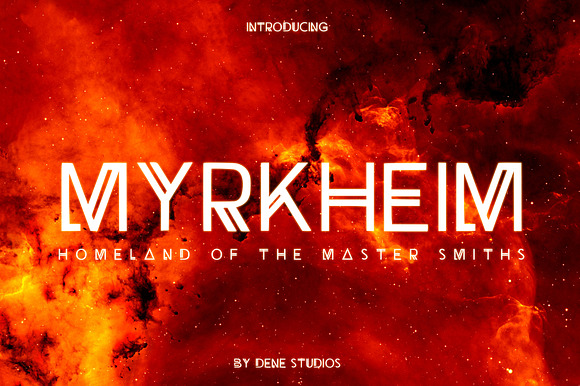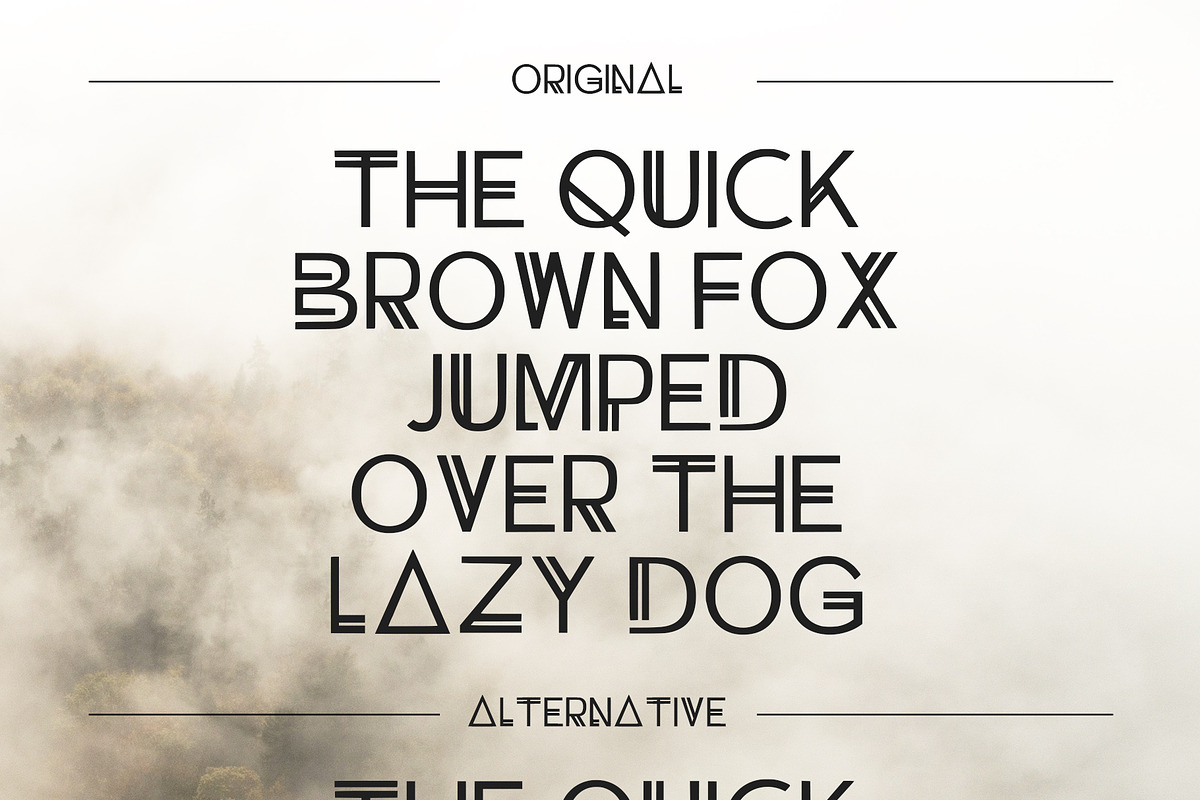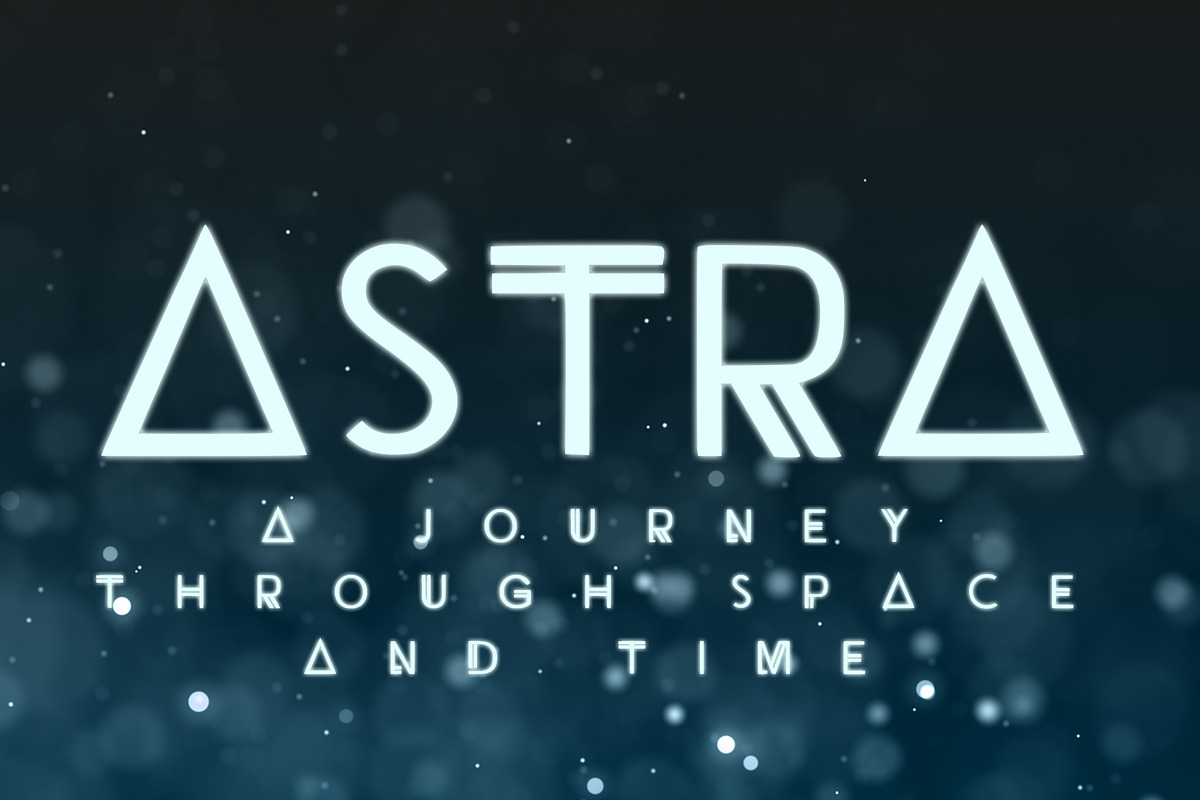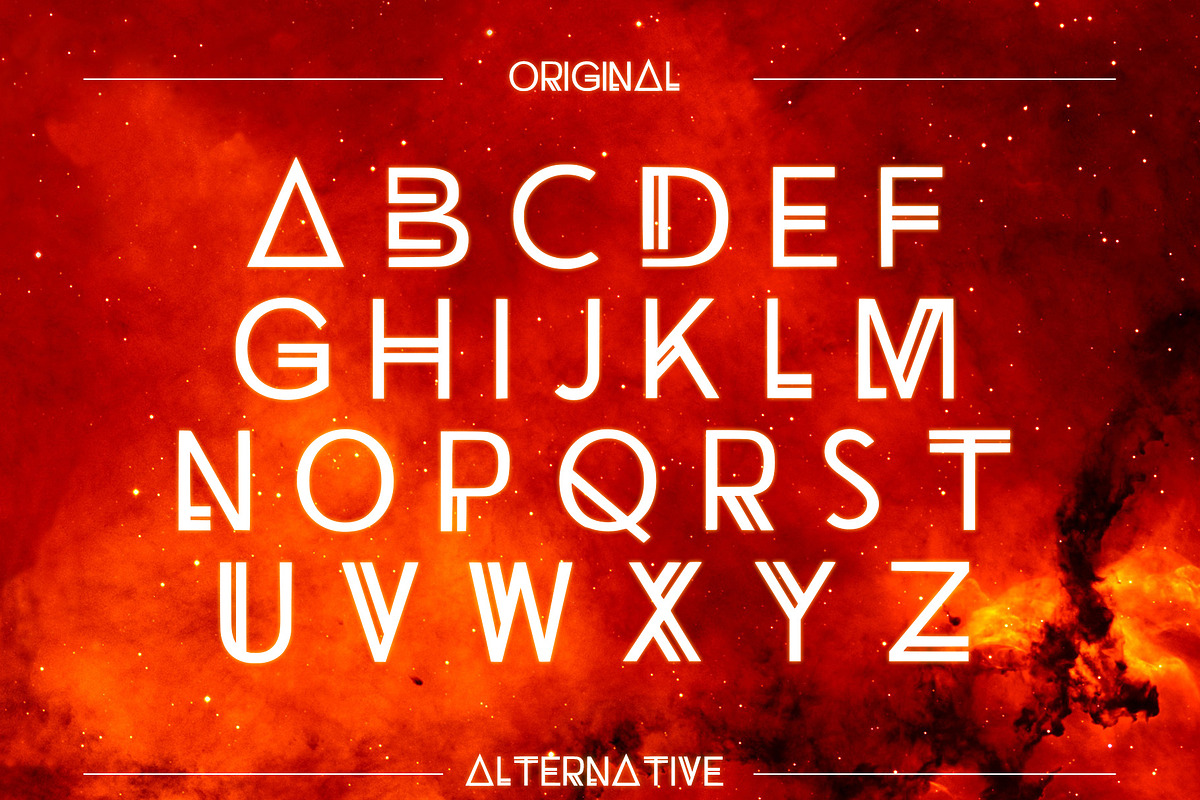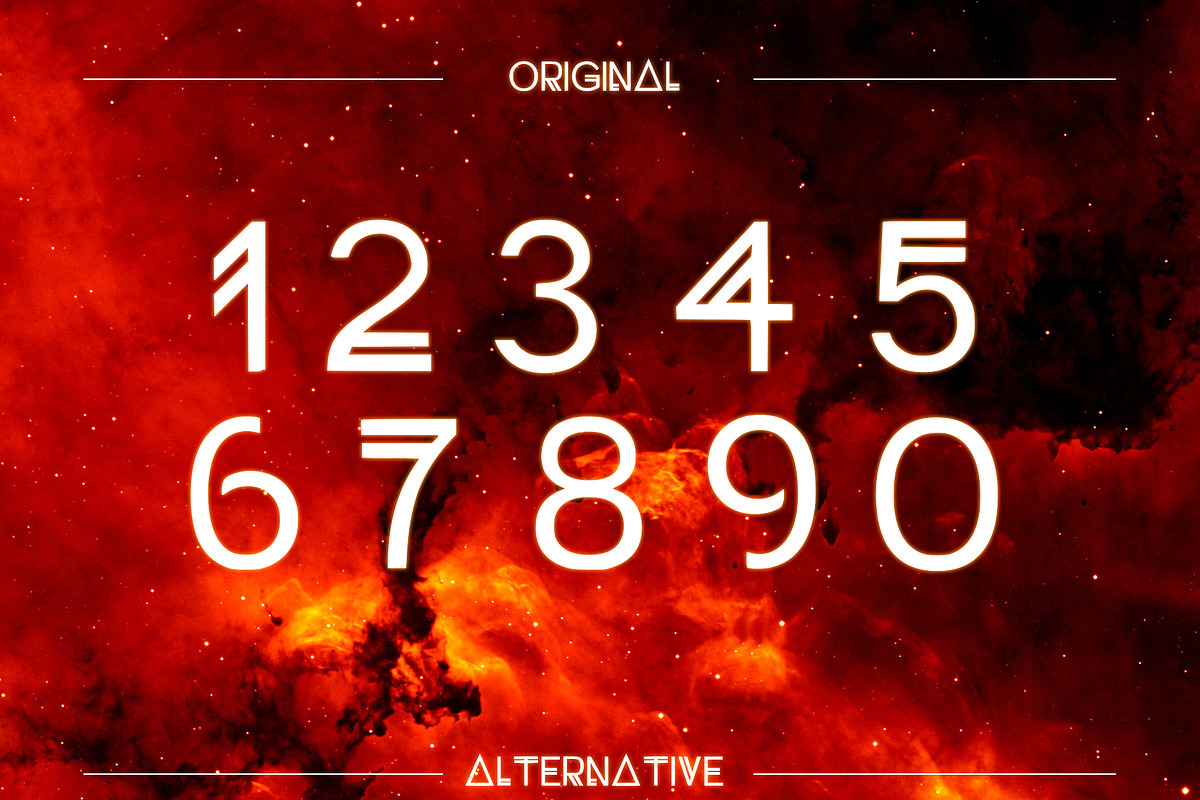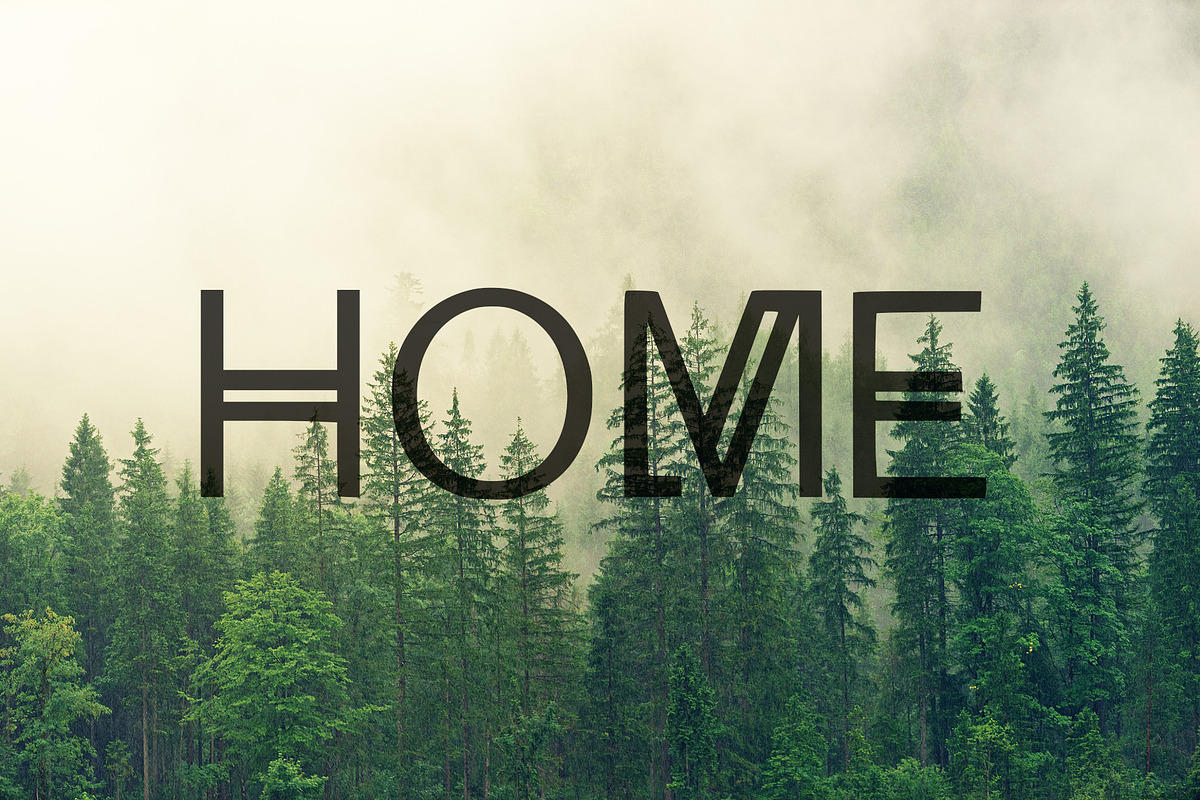
Myrkheim - A Norse Inspired Typeface
Myrkheim is a unique and creative design that has been passionately handcrafted to give you a symbolic typeface. Inspired by Norse mythology and the various realms told in the Viking sagas. This typeface comes in two styles that contain subtle differences. The Myrkheim font will make your upcoming projects look creative and unique.
- Myrkheim Regular
- Myrkheim Alternative Regular